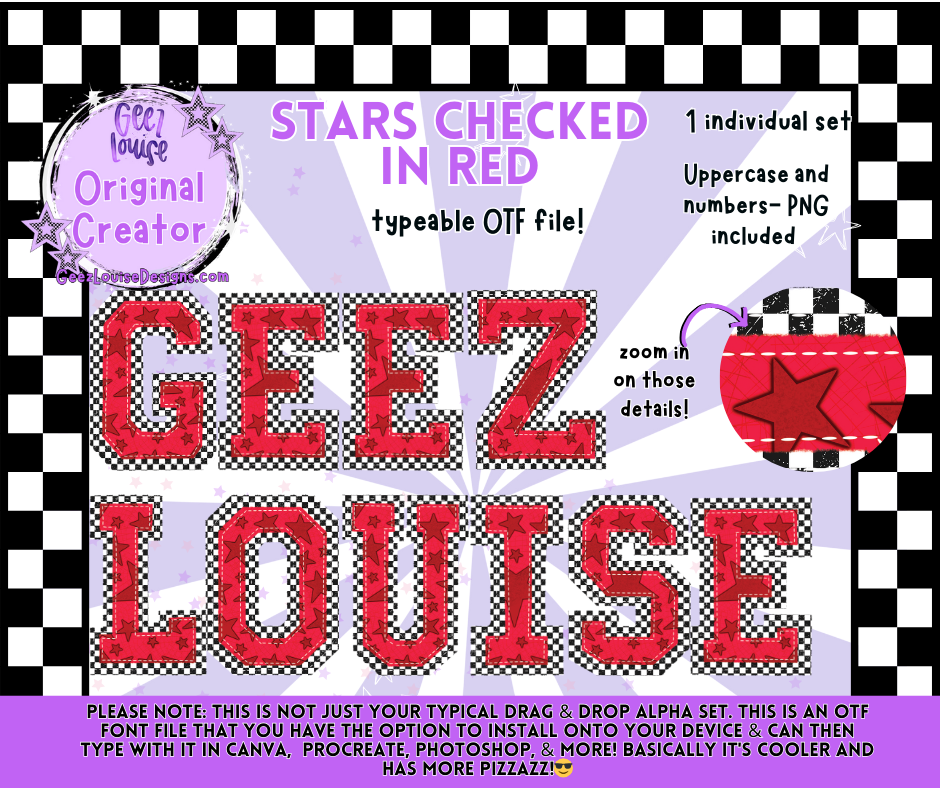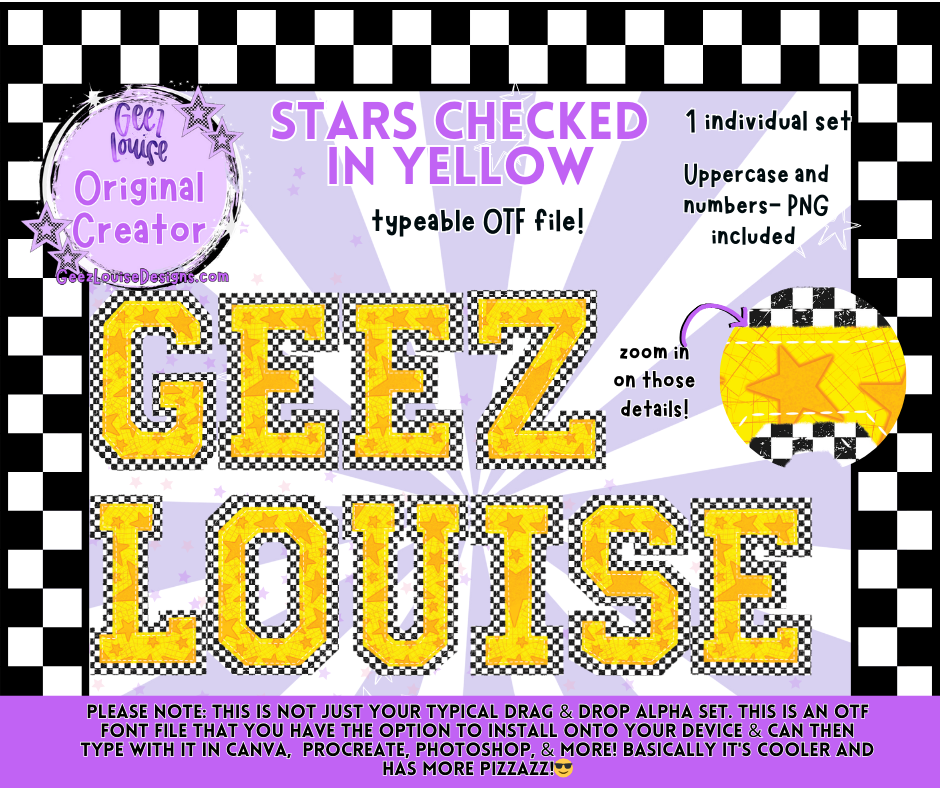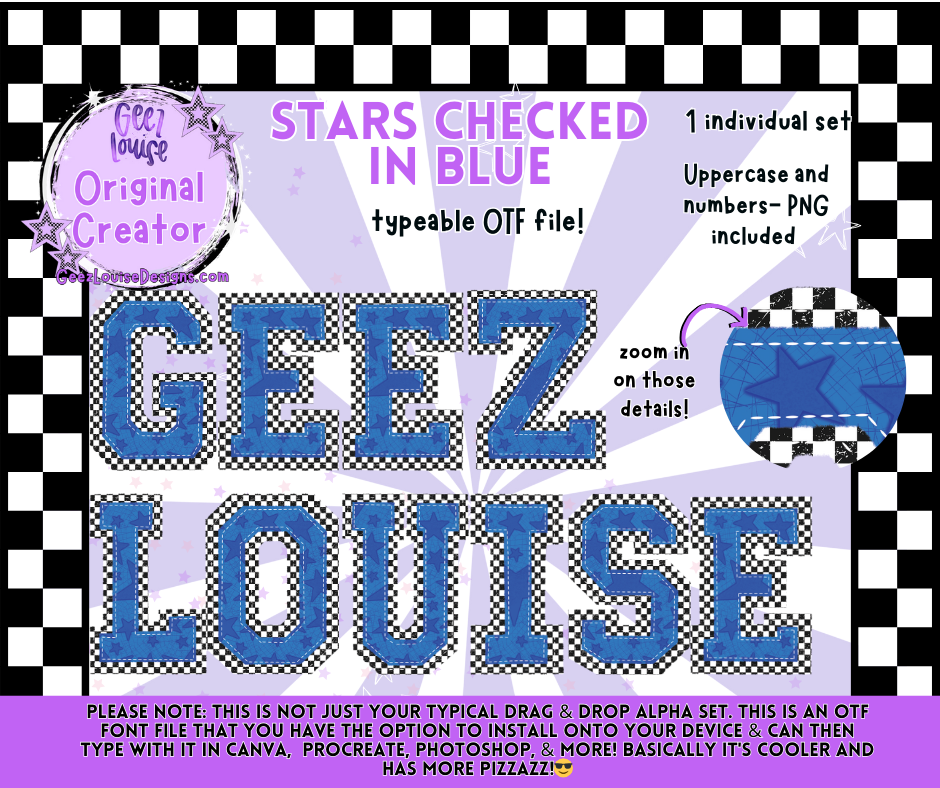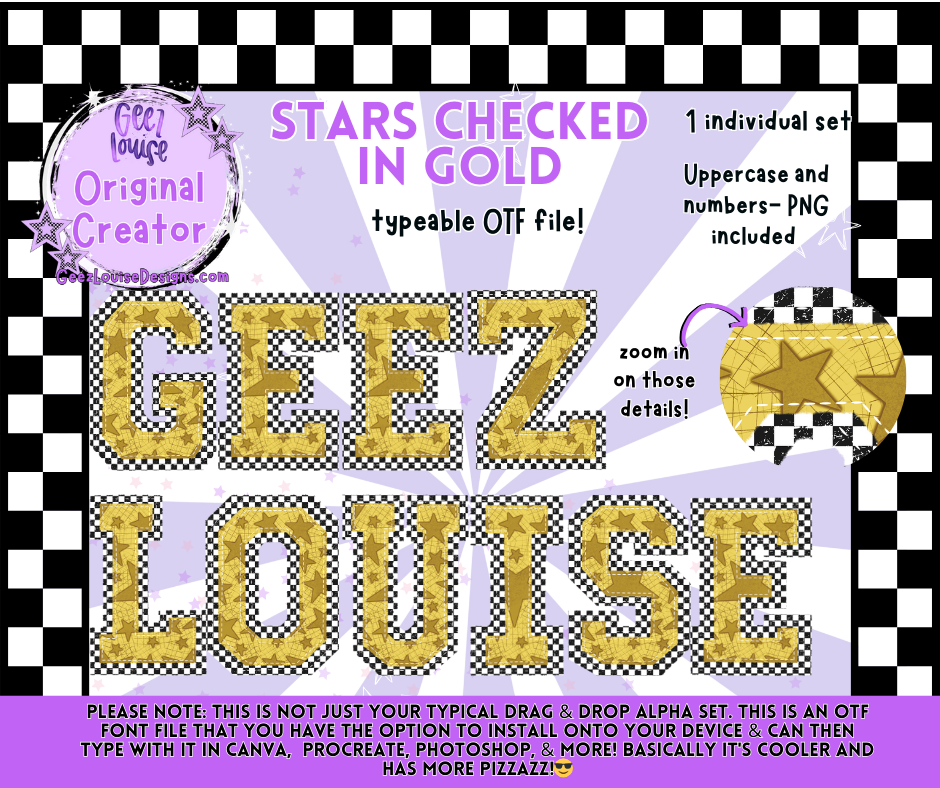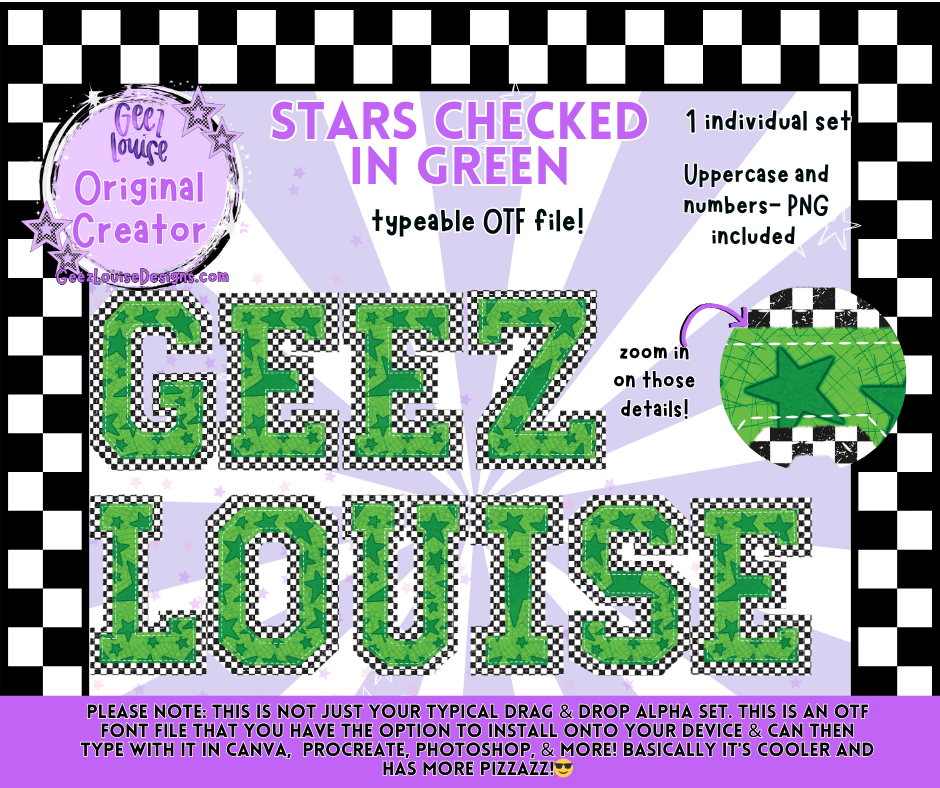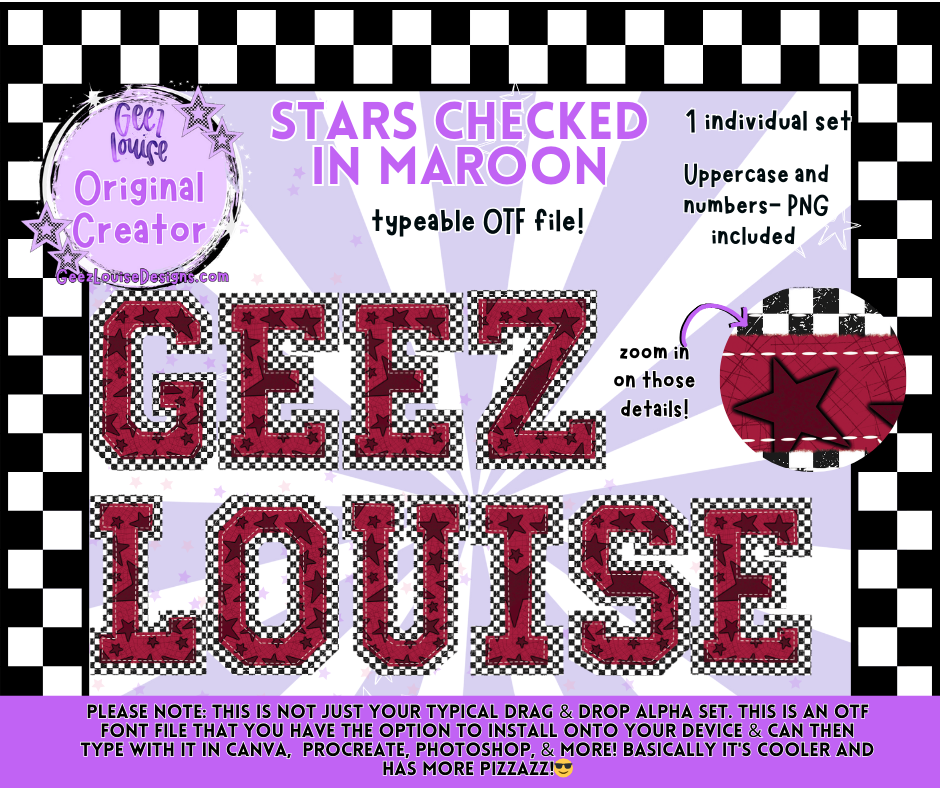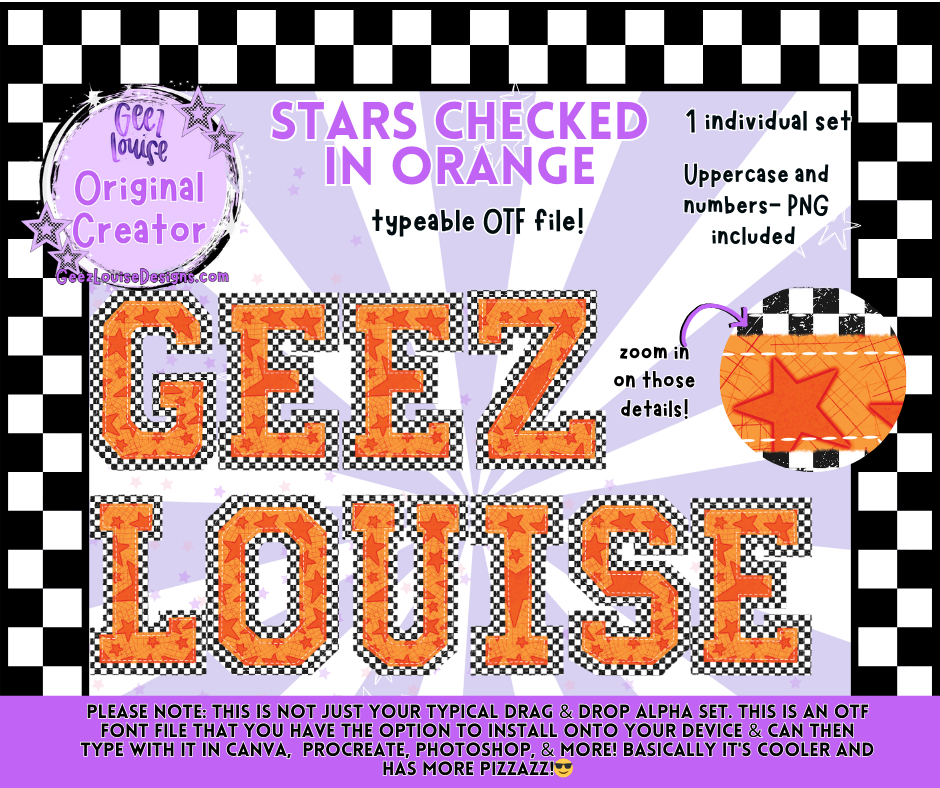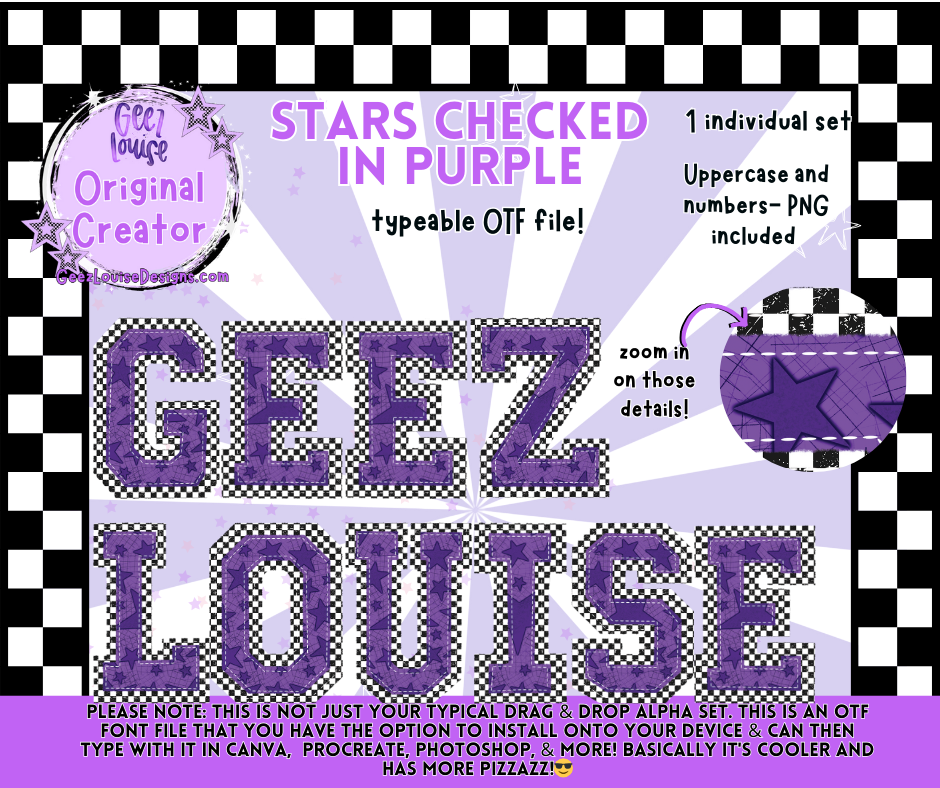
Stars Checked In – OTF Fonts + PNG | Multiple Color Variants
Bold. Checked. Slightly unhinged.
Stars Checked In is not your average drag-and-drop PNG set—it’s a fully typeable OTF font designed for creators who want their words to scream in maroon, orange, red, green, or whatever flavor of chaos you choose.
• Multiple color variants:
• Maroon
• Green
• Orange
• Yellow
• Gold
• Red
• Purple
💡 Why You’ll Love It:
• Not just a vibe—it's a ritual.
• Designed to pair with your weirdest lyric pulls and most dramatic mockups.
• Star-checked texture adds instant lore to any layout.